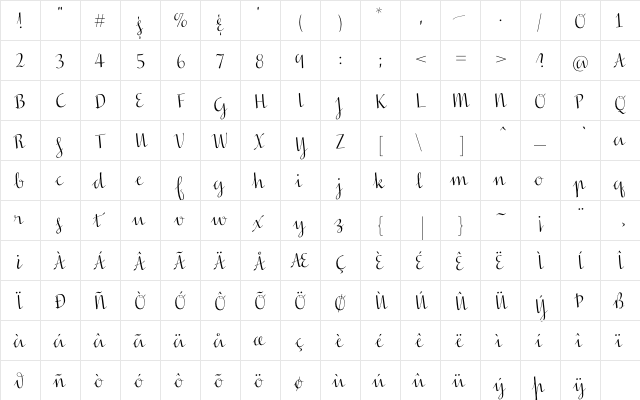
In Screaming Color Regular
Design Context for In Screaming Color Typeface
In Screaming Color is a composed and adaptable typeface that performs quietly and consistently across a wide range of design contexts.